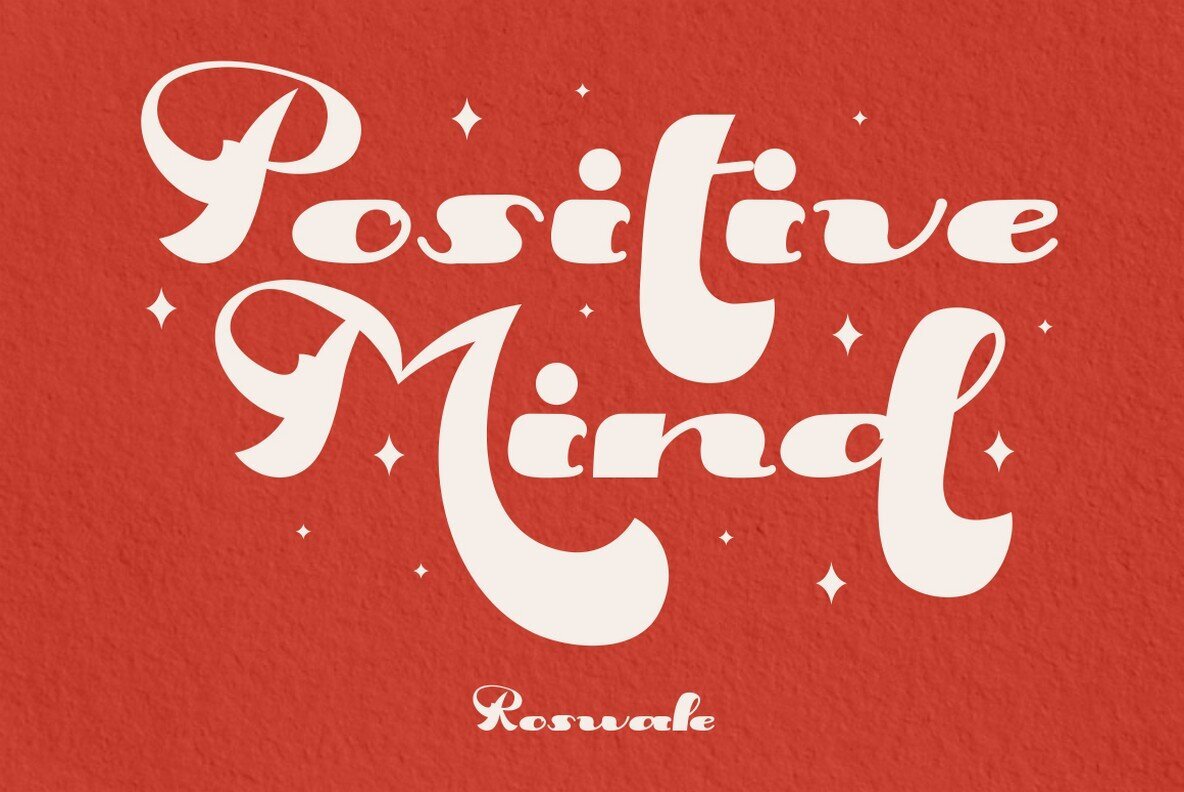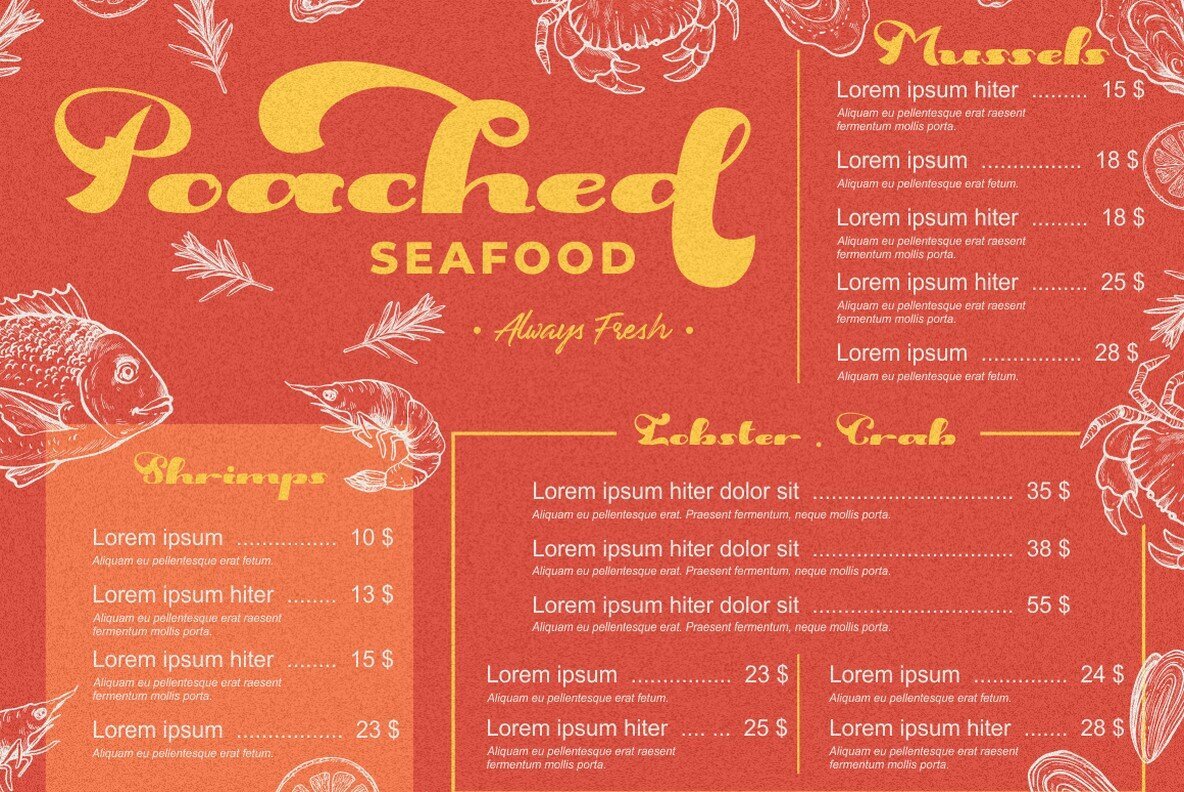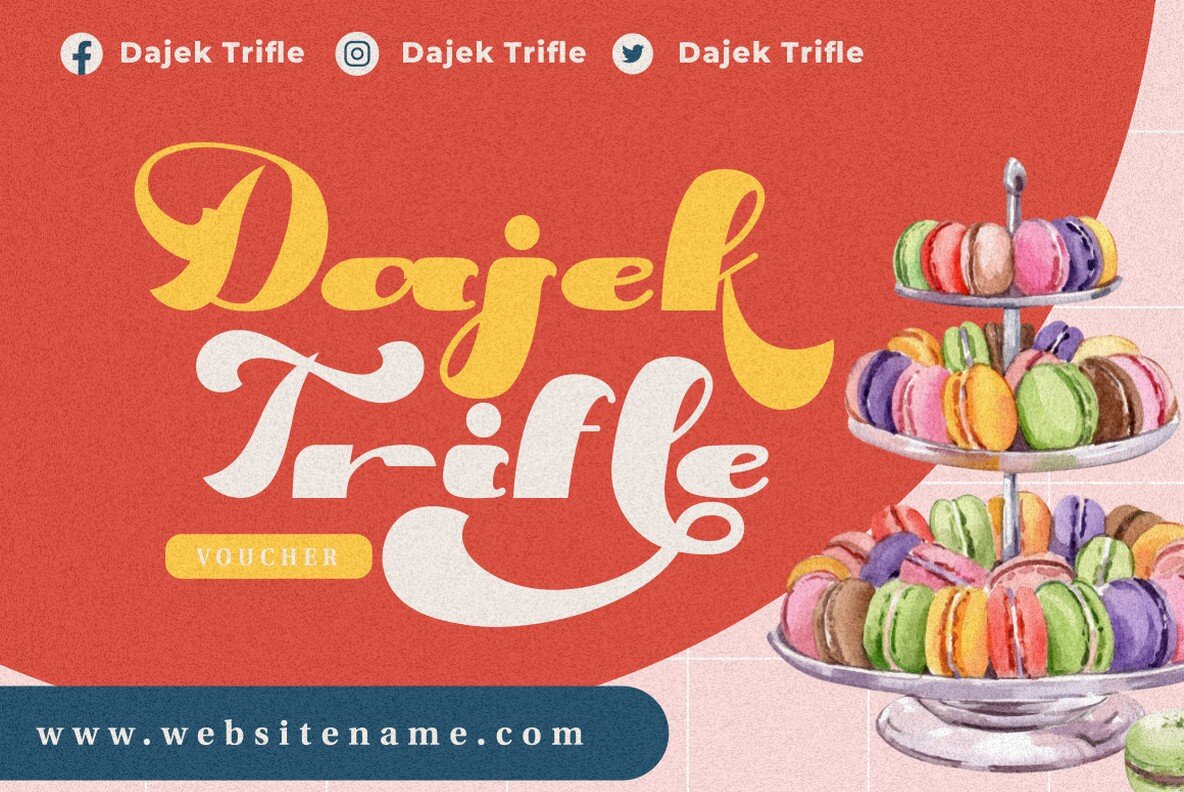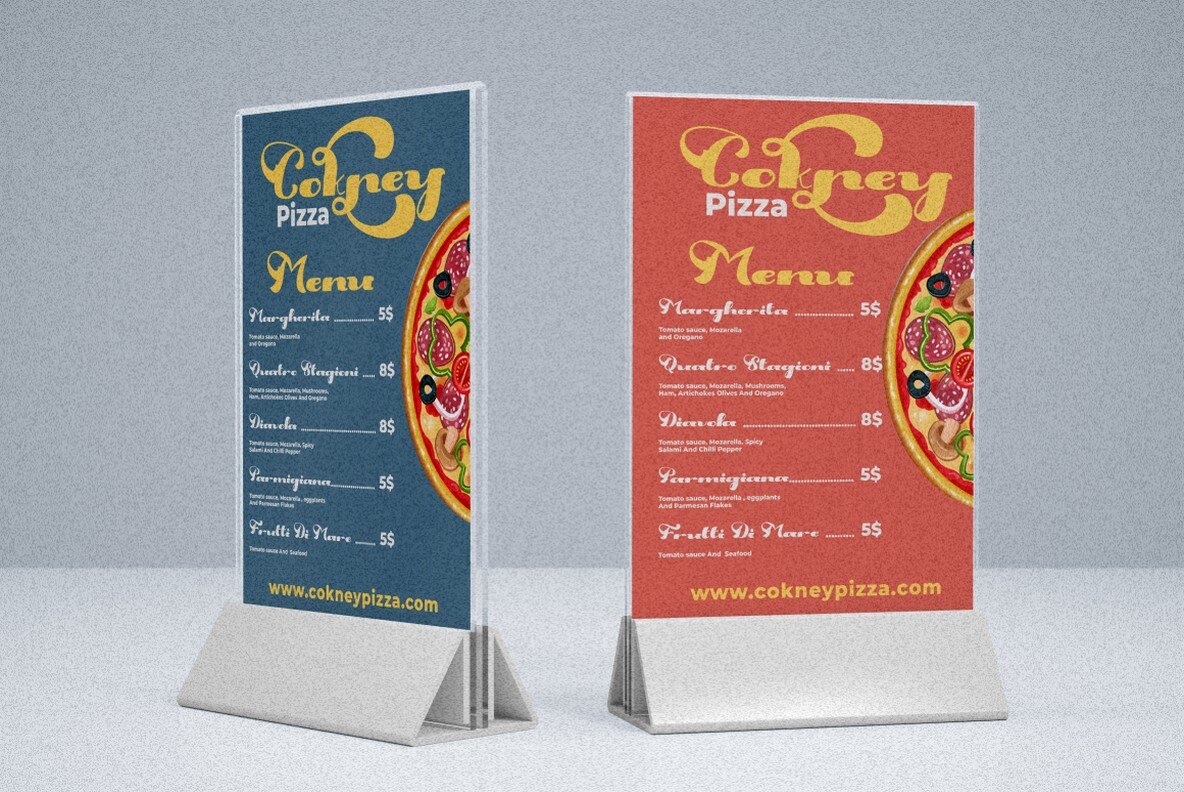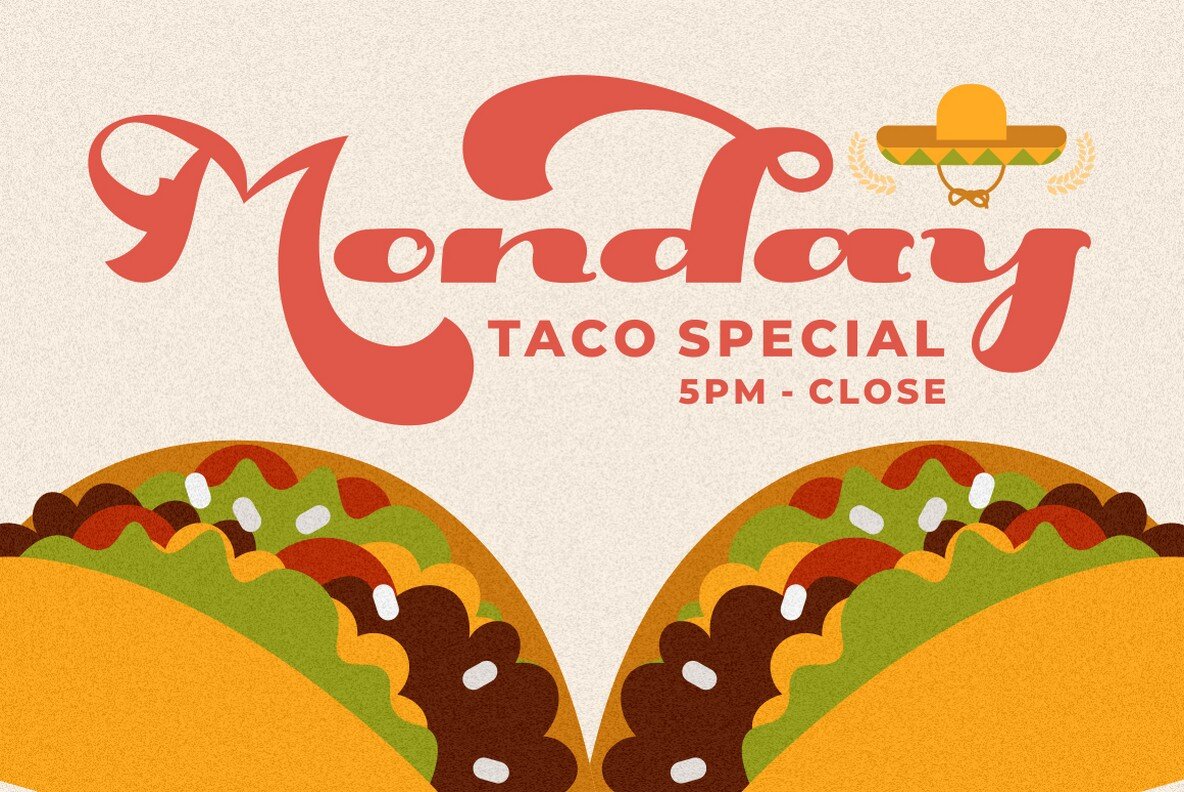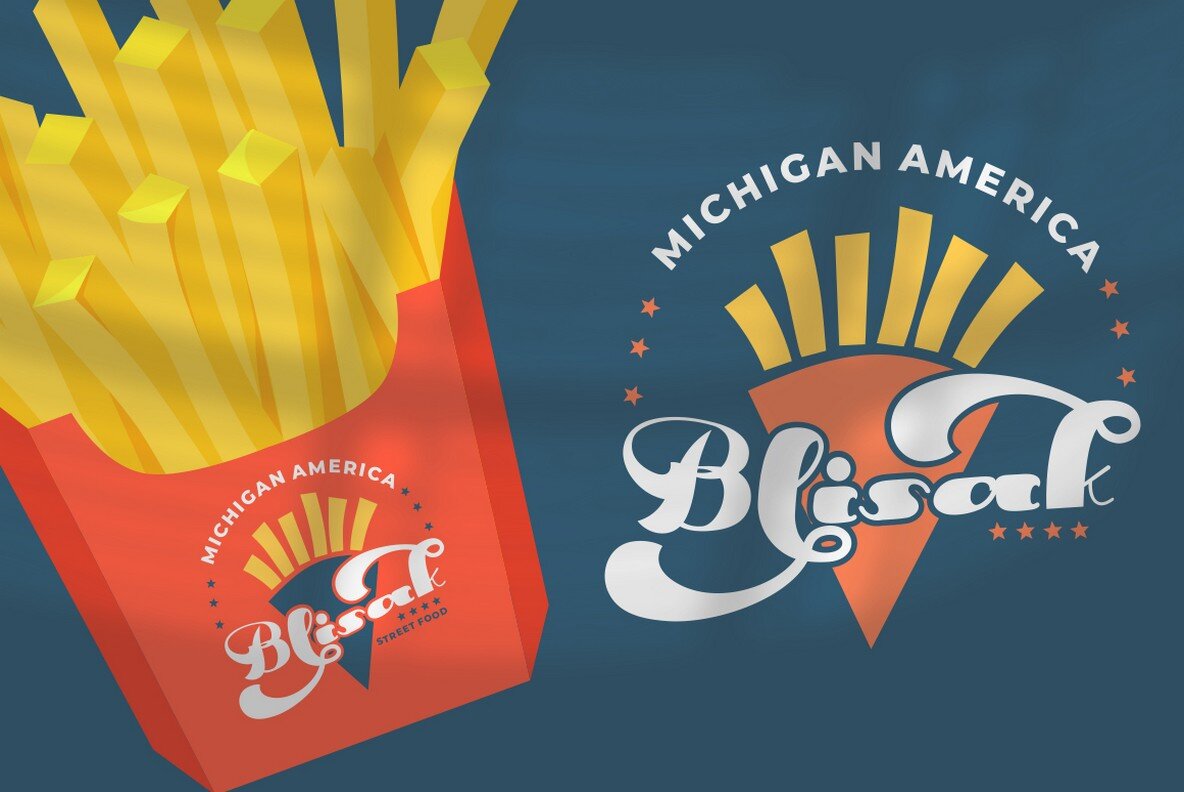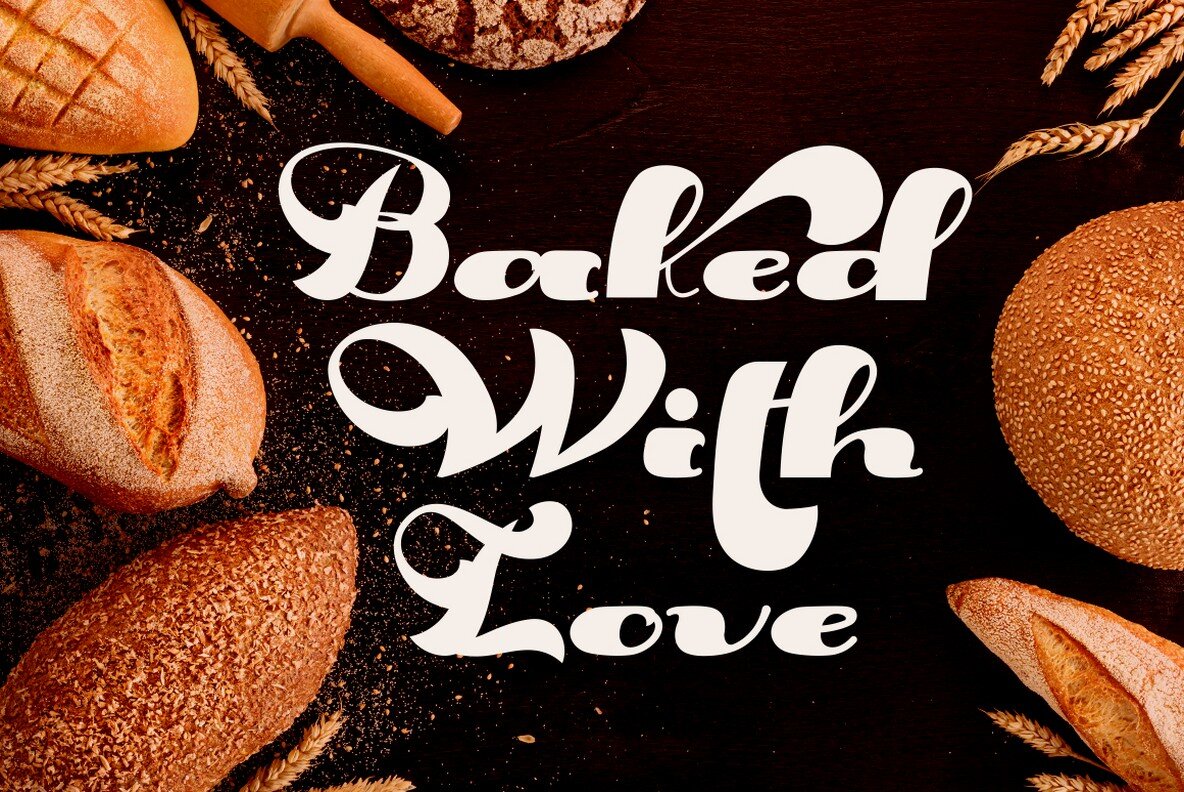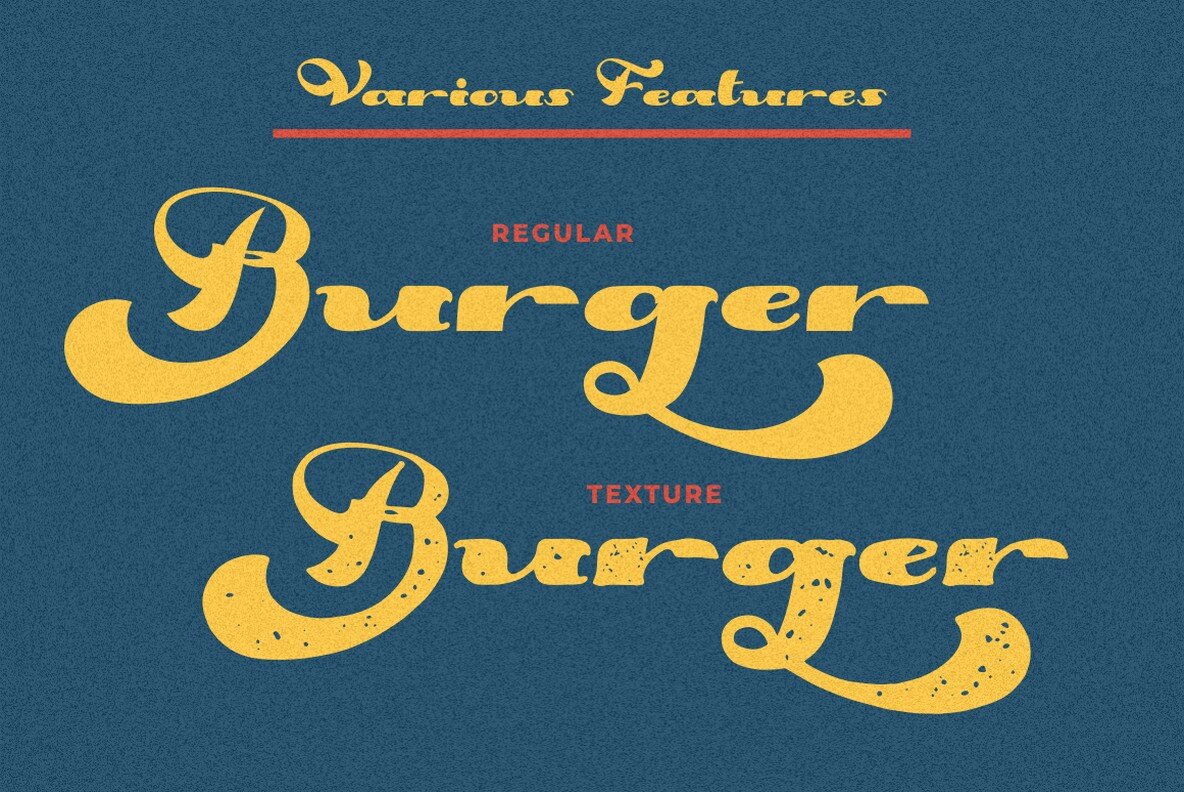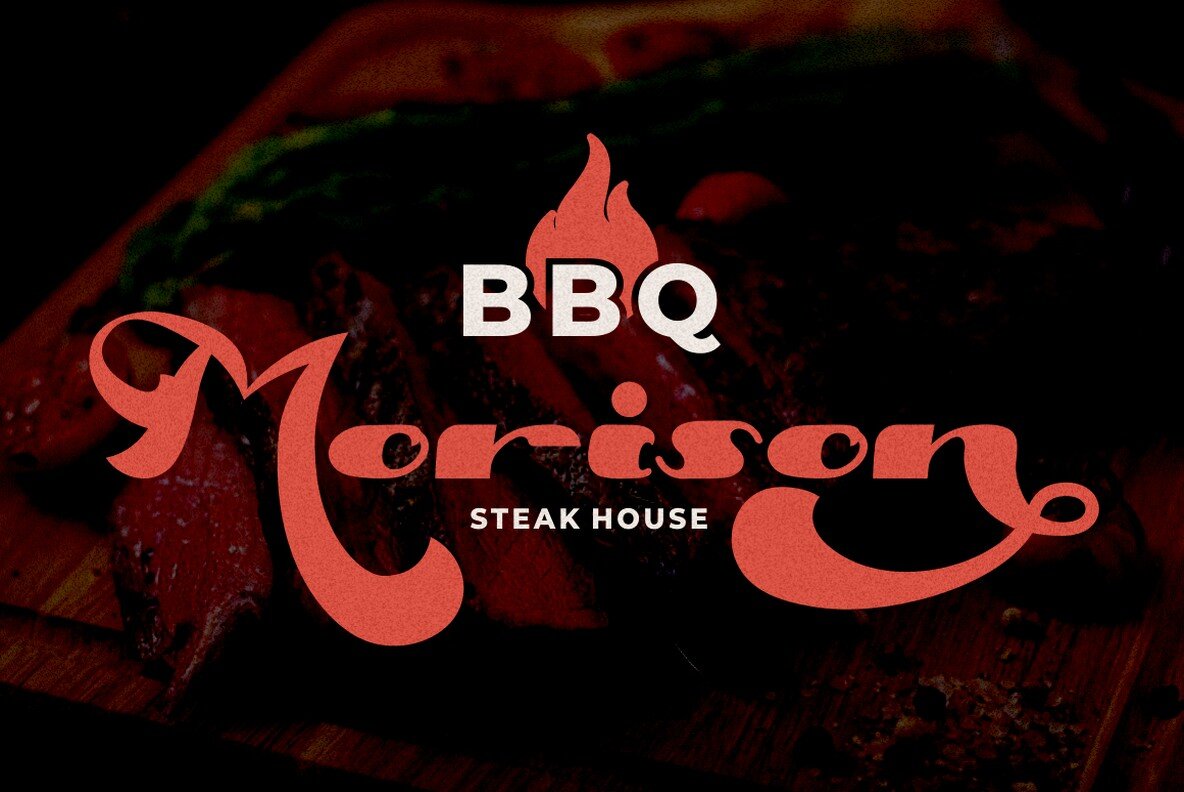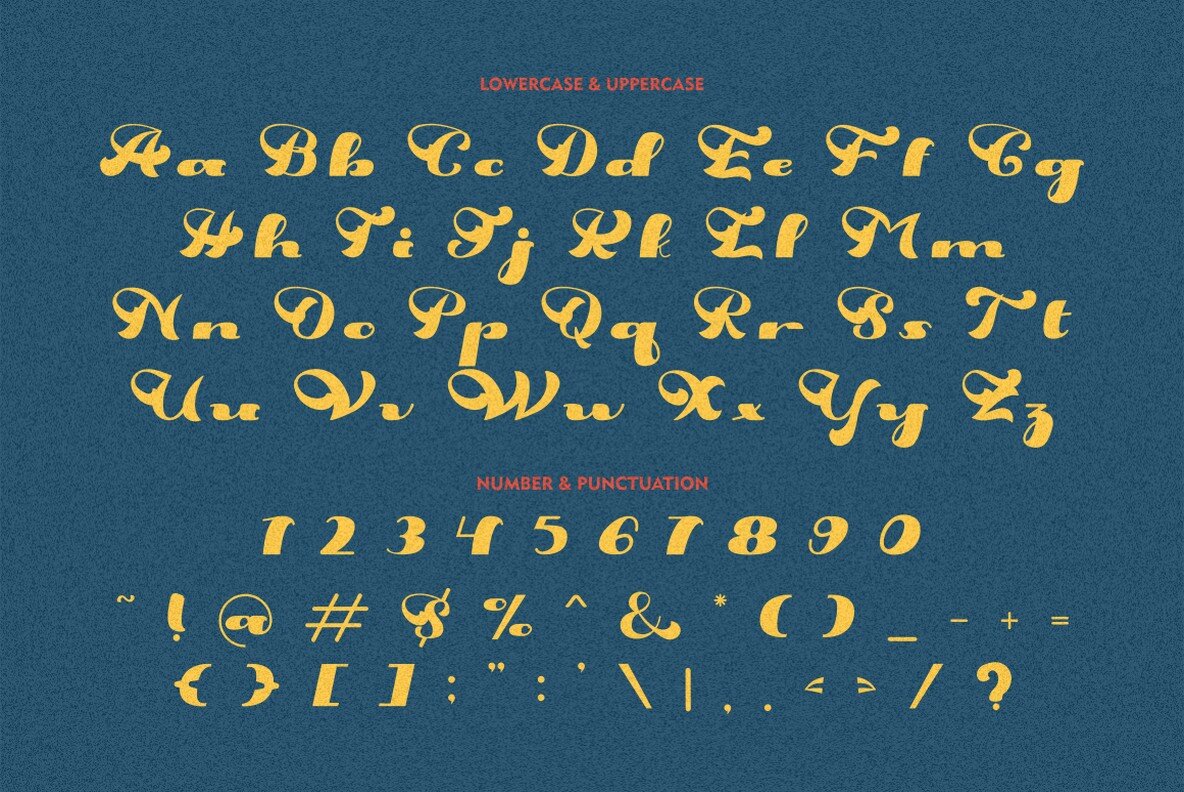
Roswale Font
Roswale Regular
Roswale Texture
Roswale exudes vintage charm reminiscent of classic poster designs. This bold script font is meticulously crafted, providing a striking choice for home decor and craft projects. With its bold presence, Roswale enhances a myriad of creative works, making it an excellent option for designers. Roswale finds its niche in a wide array of applications such as storybooks, illustrations, comic books, t-shirts, posters, greeting cards, logos, branding, and stickers. It stands out in both digital and print displays, lending a nostalgic touch to your designs.Roswale: Vintage Bold Font for Display Designs